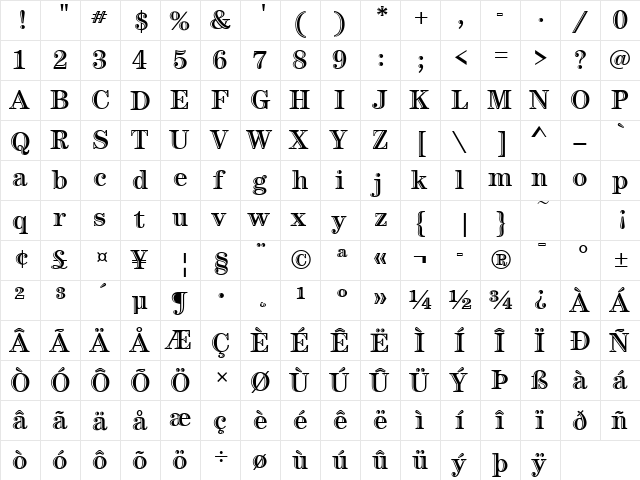
Century Htld ITC TT Regular
Century Htld ITC TT takes a measured approach to typography — its balanced proportions and neutral character make it a reliable workhorse for both digital and print work.